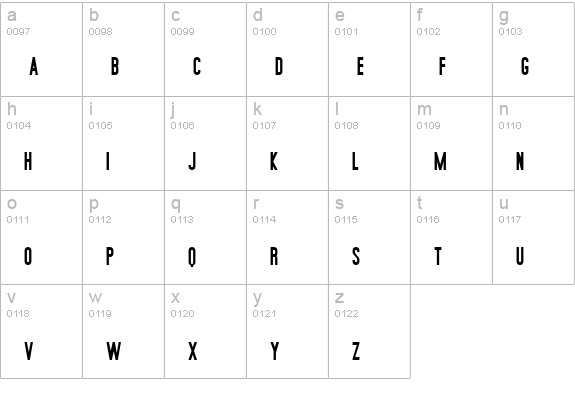
Movie Poster Bold is a strong, high-contrast variant in the Movie typeface family \xE2\x80\x94 well suited to headlines, attention-grabbing titles, and strong calls-to-action.
Introducing Movie Poster Bold font - a bold and impactful typeface designed to make a statement on any project. With its strong and commanding presence, this font is perfect for movie posters, book covers, and other creative designs that require a touch of drama. The thick strokes and sharp edges of Movie Poster Bold exude power and confidence, making it a versatile choice for both display and headline text. Best of all, Movie Poster Bold font is available for free download at FontsMarket.com. This means you can easily access this eye-catching font and elevate your designs without any cost. Don't miss out on the opportunity to add a touch of boldness to your projects with Movie Poster Bold font - download it now for free!